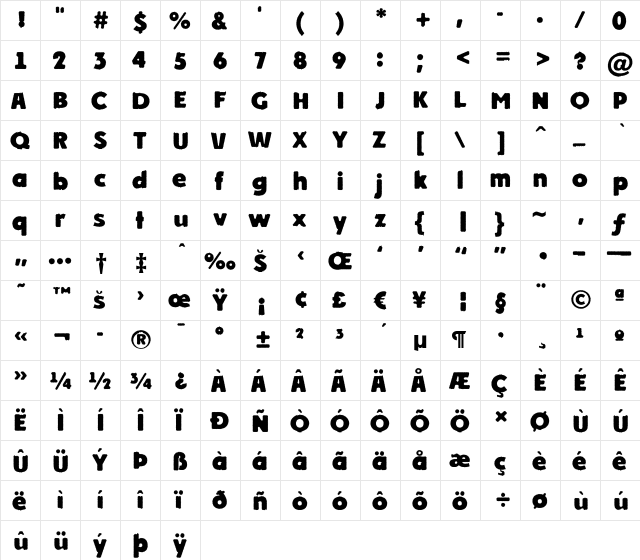
a_PlakatRgh ExtraBold
| Designer | W.Chufarofsky & M.Slutsker |
Design Context for a_PlakatRgh Typeface
a_PlakatRgh is a composed and adaptable typeface that performs quietly and consistently across a wide range of design contexts. Its bold stroke weight gives it real presence on the page.